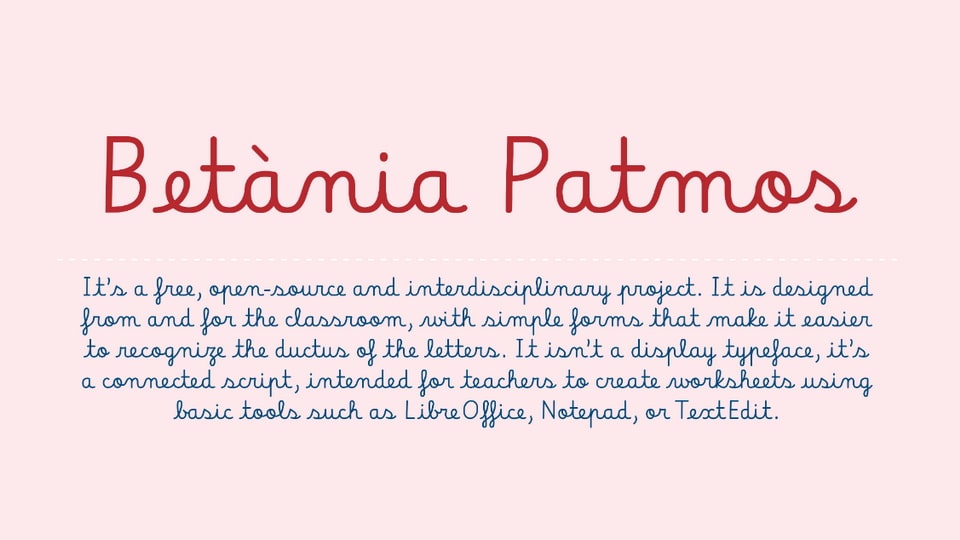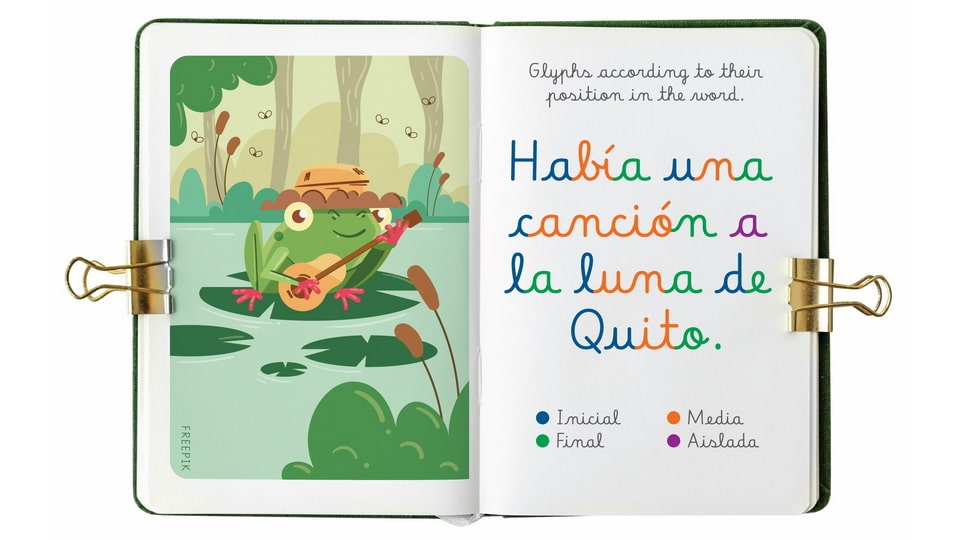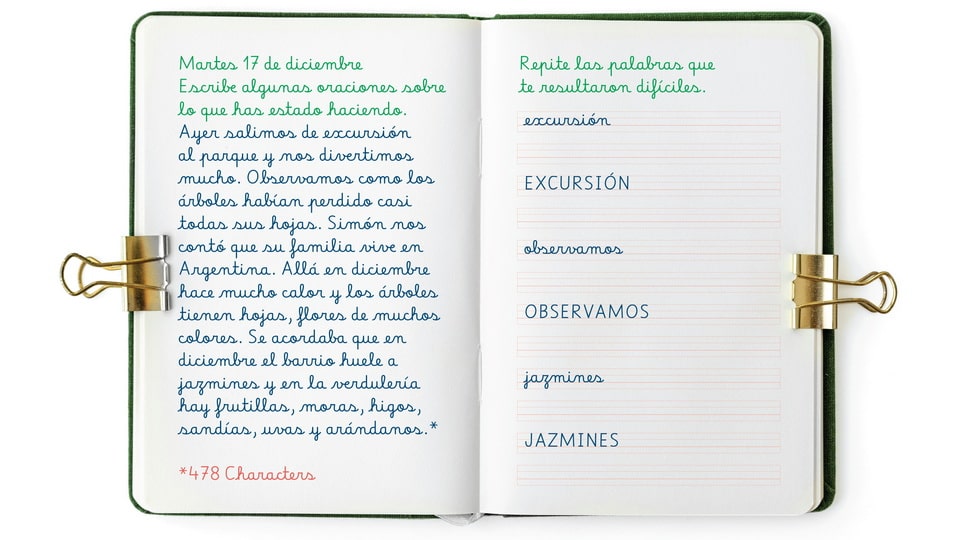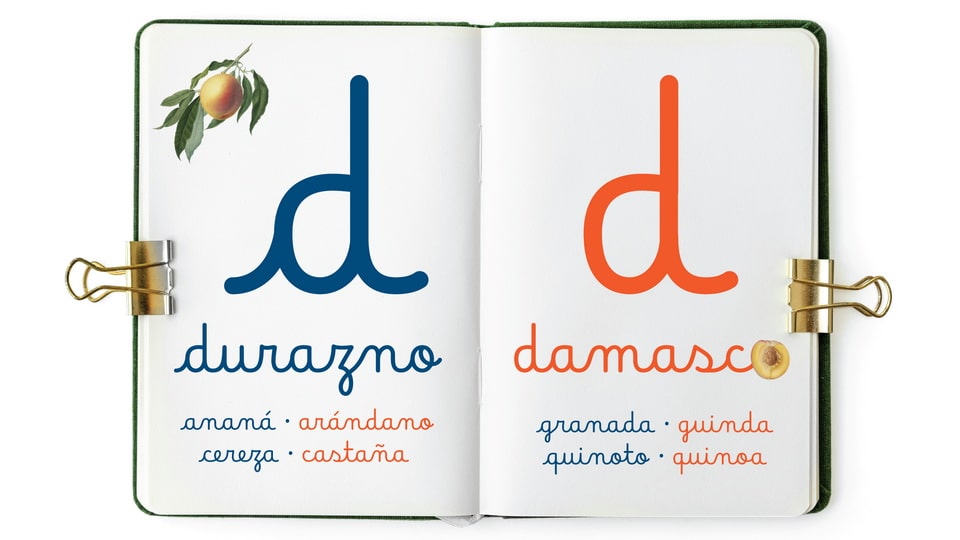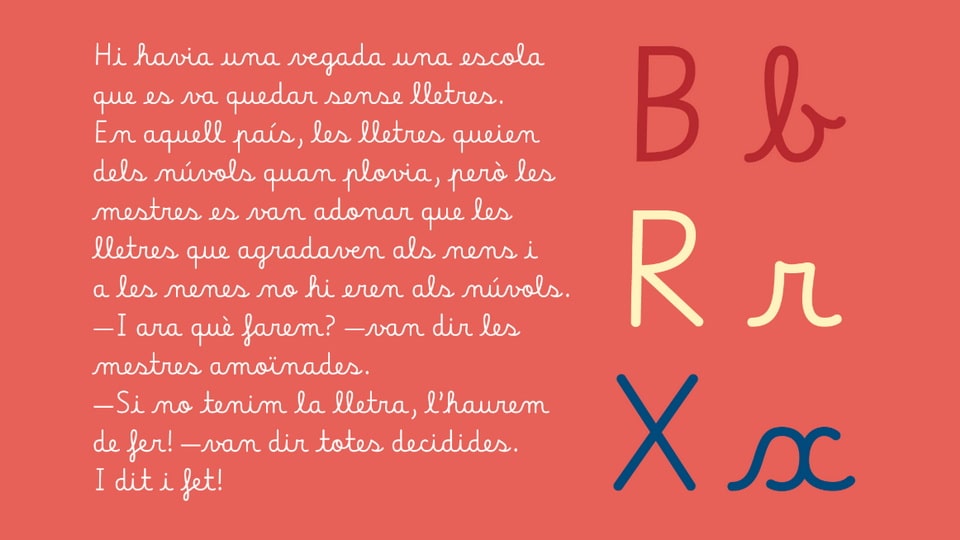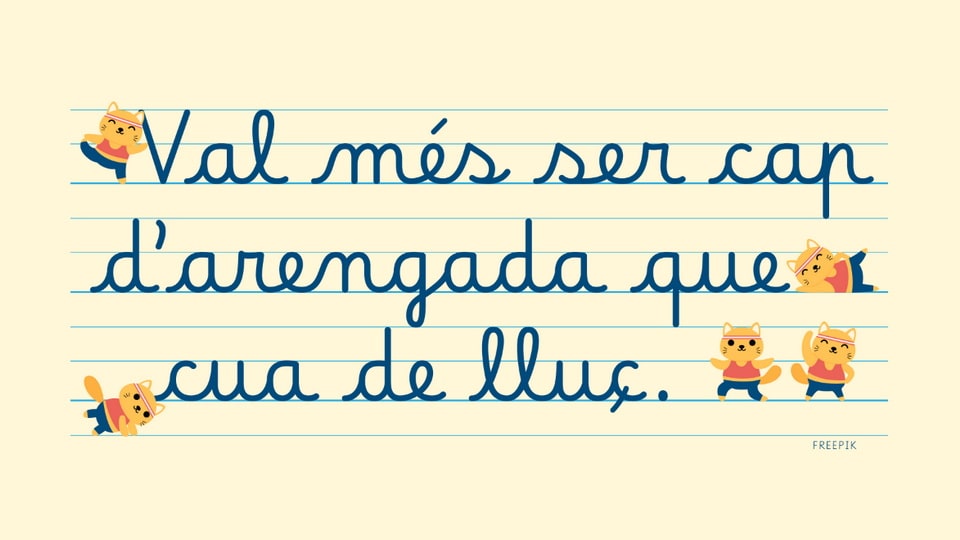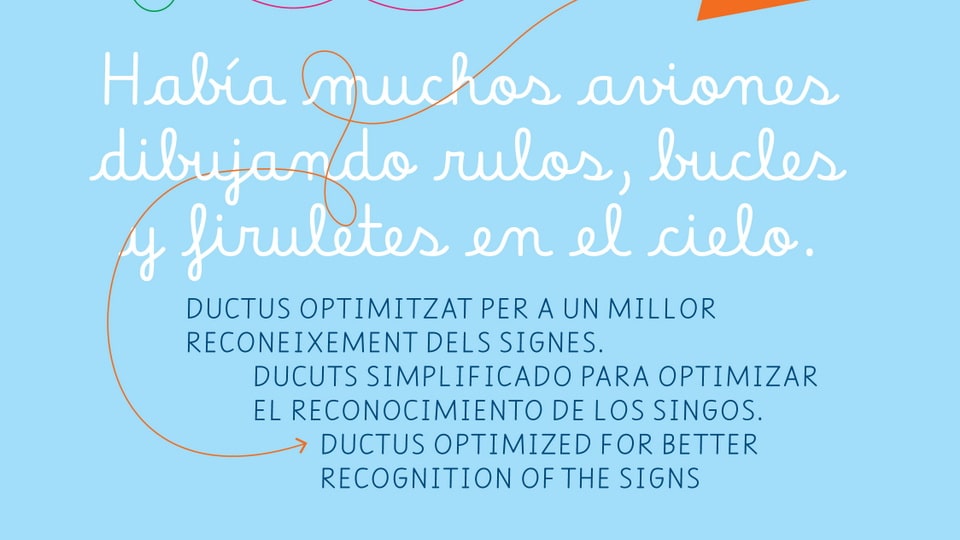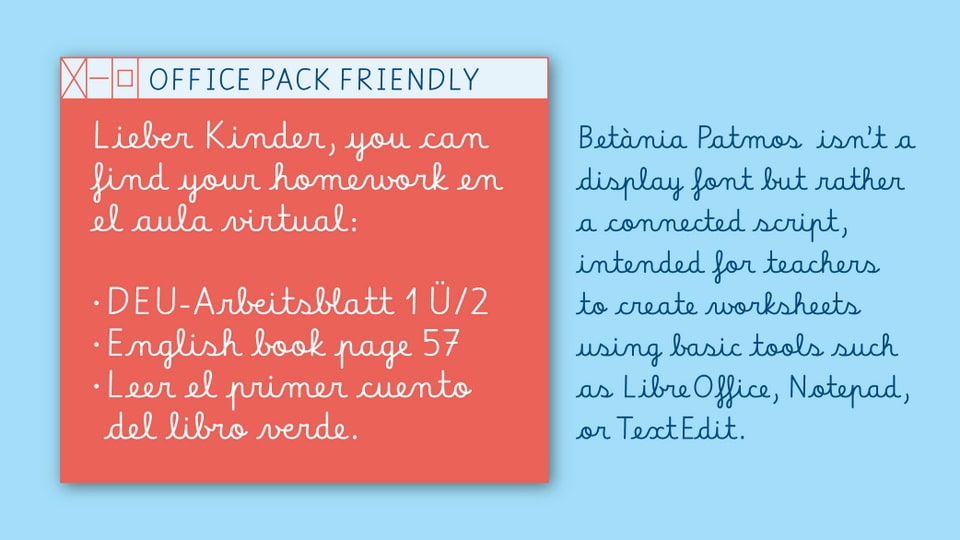
Betània Patmos is a connected educational script built around clear early-writing forms. Its rounded, low-contrast strokes create a soft handwritten rhythm, while the letters keep simple structures for easier recognition in classroom settings. The script avoids extra decoration and heavy loops, giving the alphabet a clean, practical shape rather than a display style. Slightly condensed proportions help text fit efficiently across lines, and the steady connections support worksheet-style writing samples. It suits educational materials, early literacy exercises, handwriting practice sheets, classroom labels, and simple text layouts where readable cursive forms are more important than ornament.